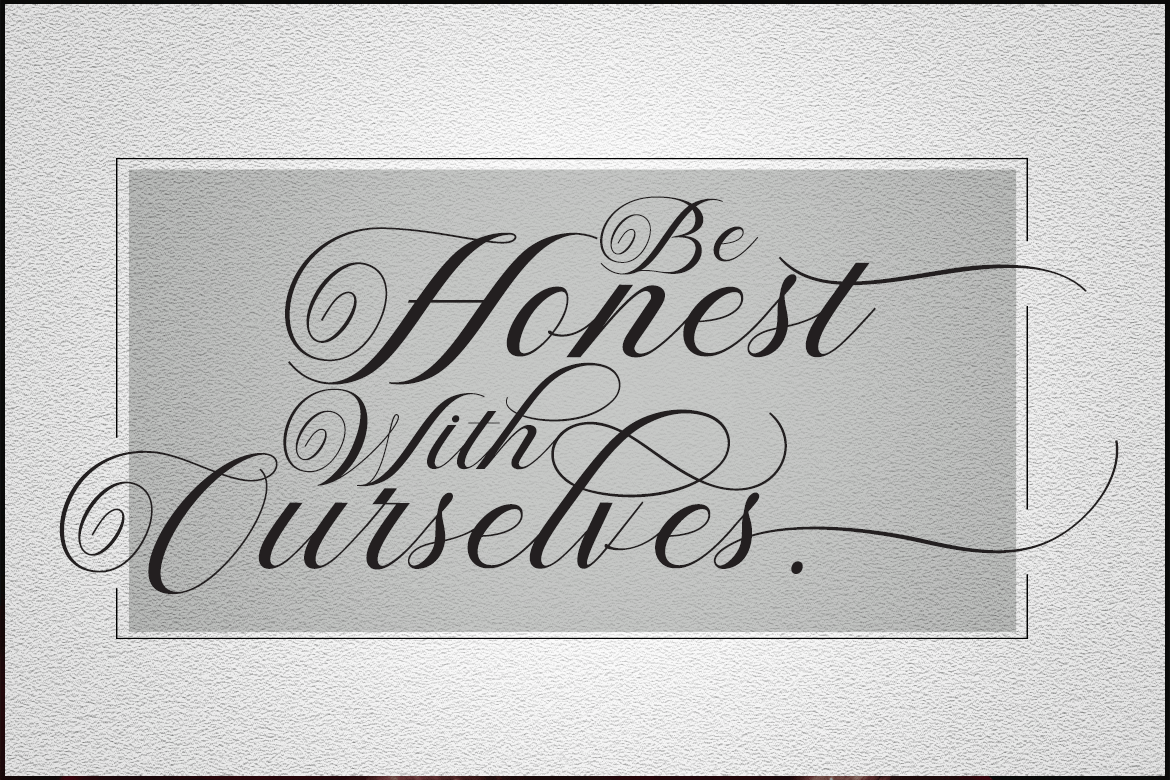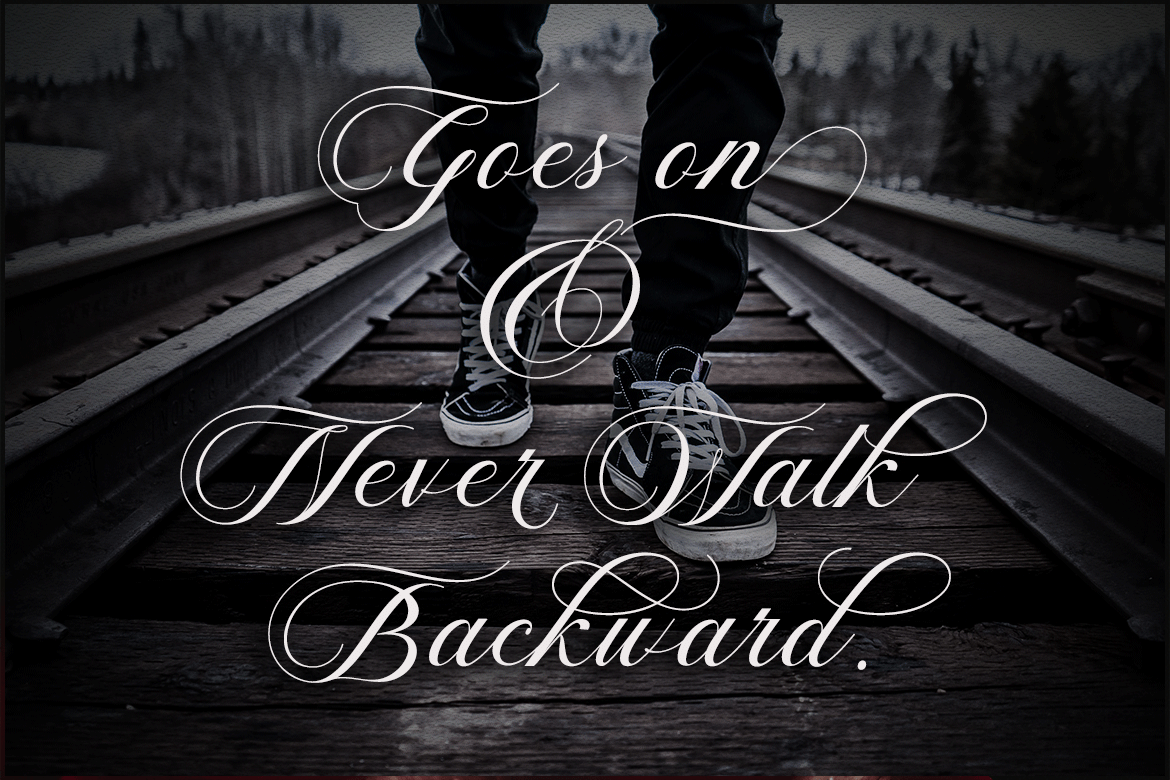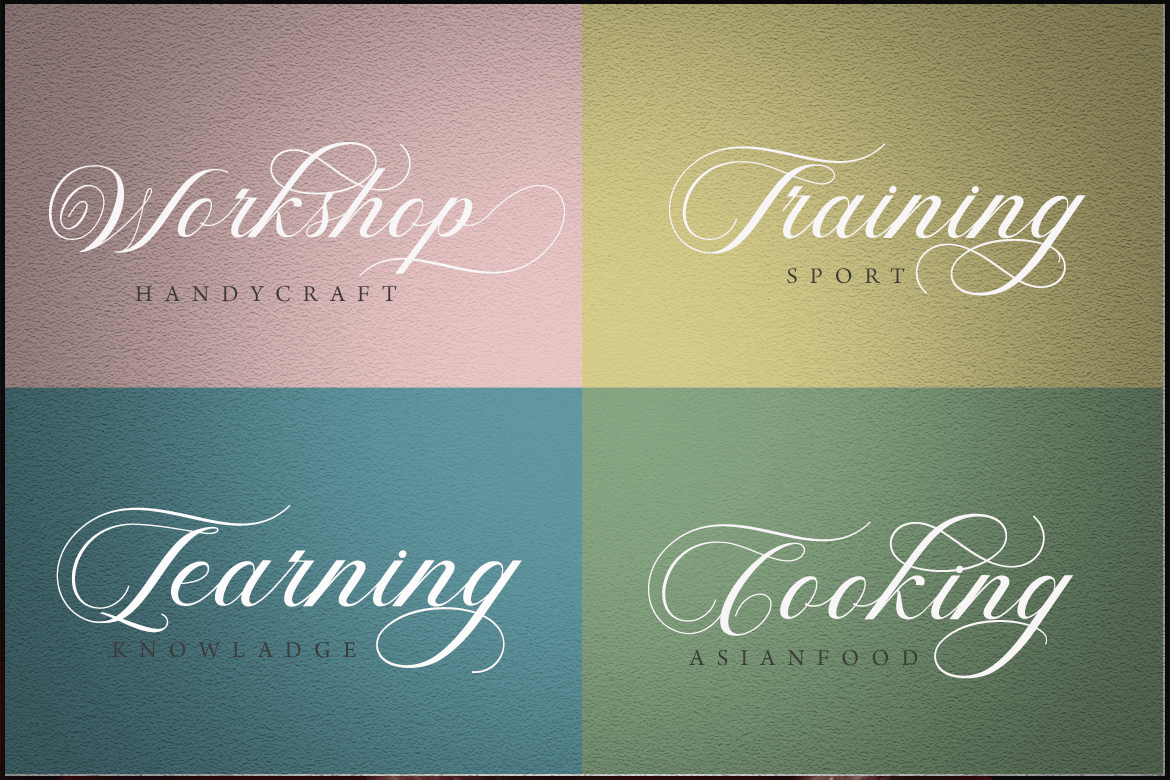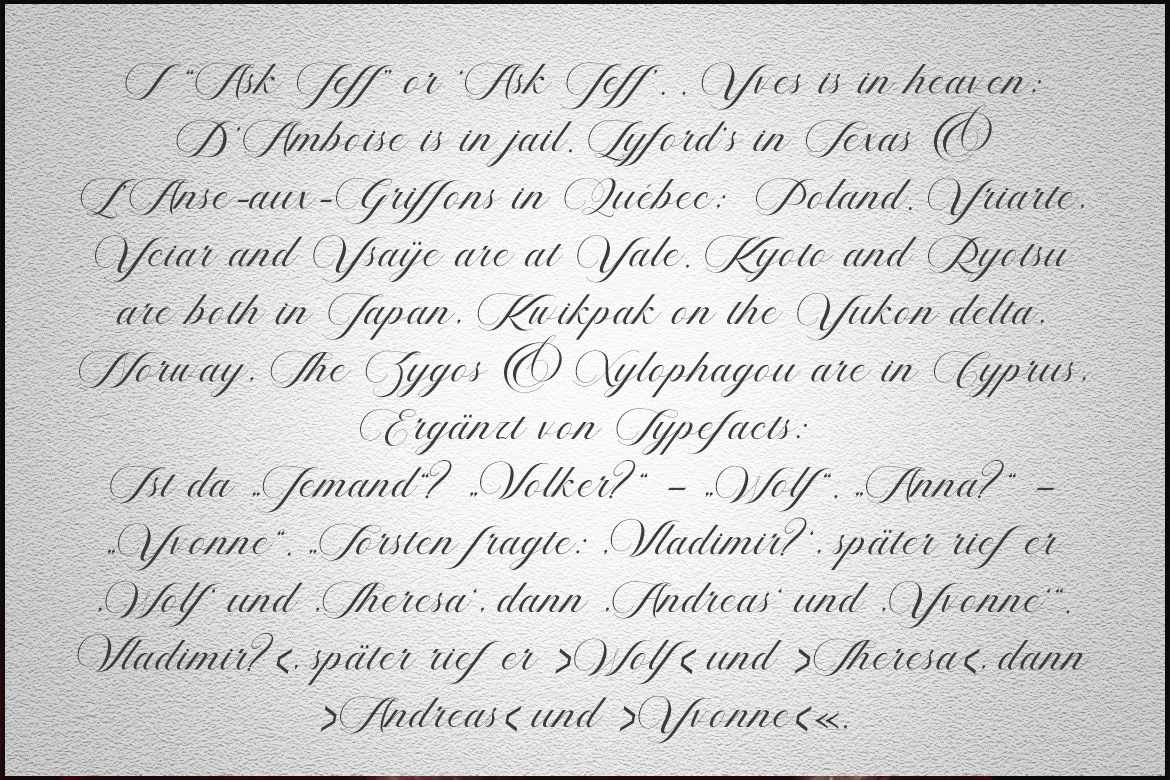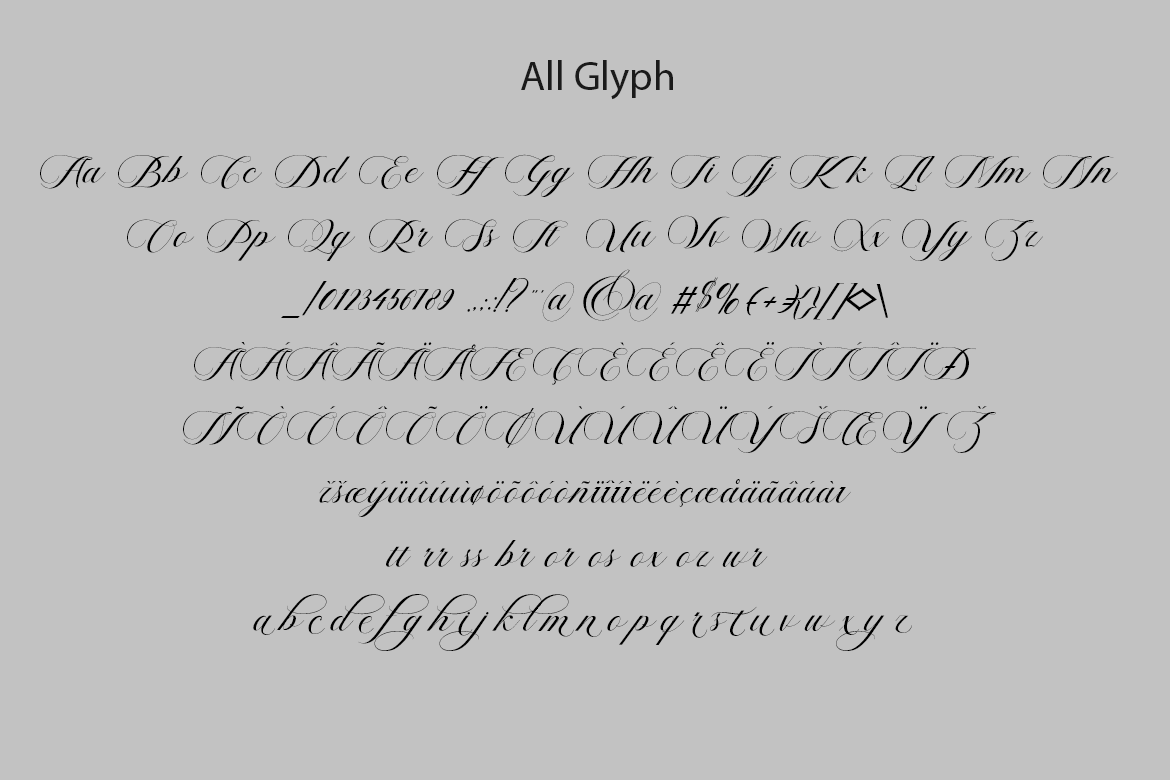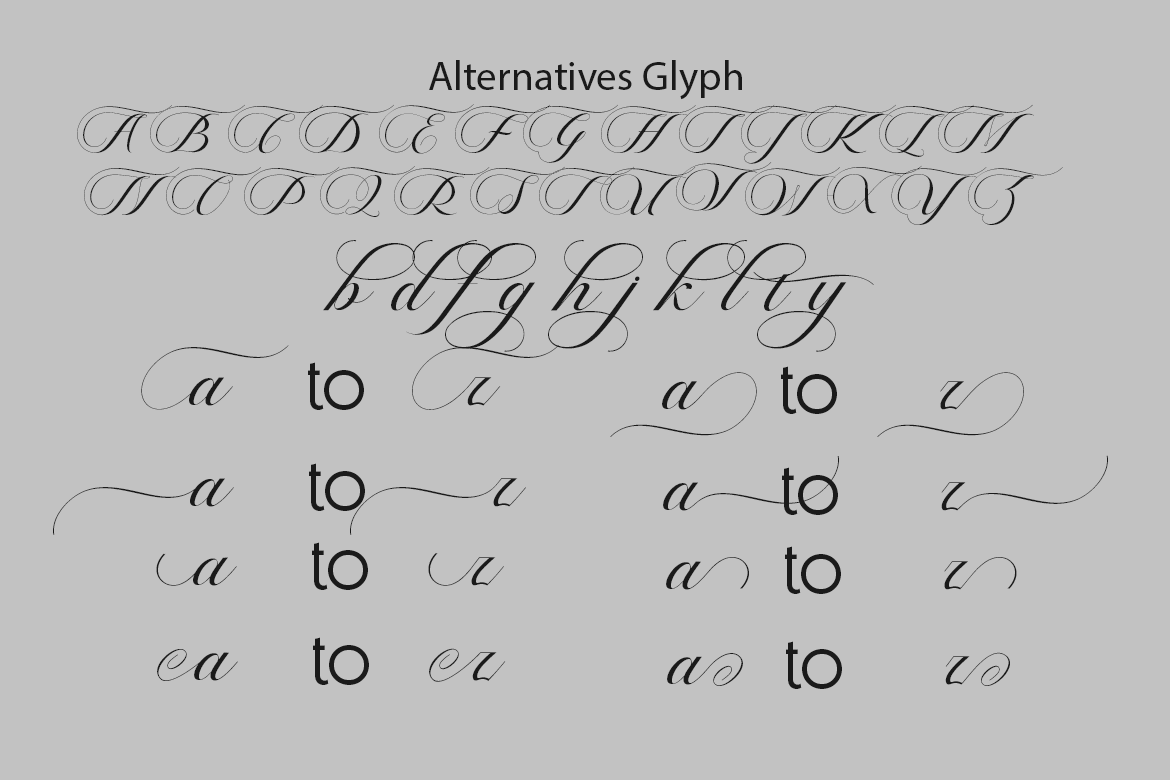
Violeta
Violeta is another lovely modern calligraphy typefaces, which is combining the style of classic calligraphy with an modern style. combines from copperplate to contemporary typeface with a dancing baseline, modern and elegant touch. Violeta features 500 glyphs and alternate characters Include .
The Features of this fonts is;
• Standart ligatures
• Swash Alternates
• Stylistic Alternates
• Stylistic sets
• PUA Unicode (Private Use Areas)